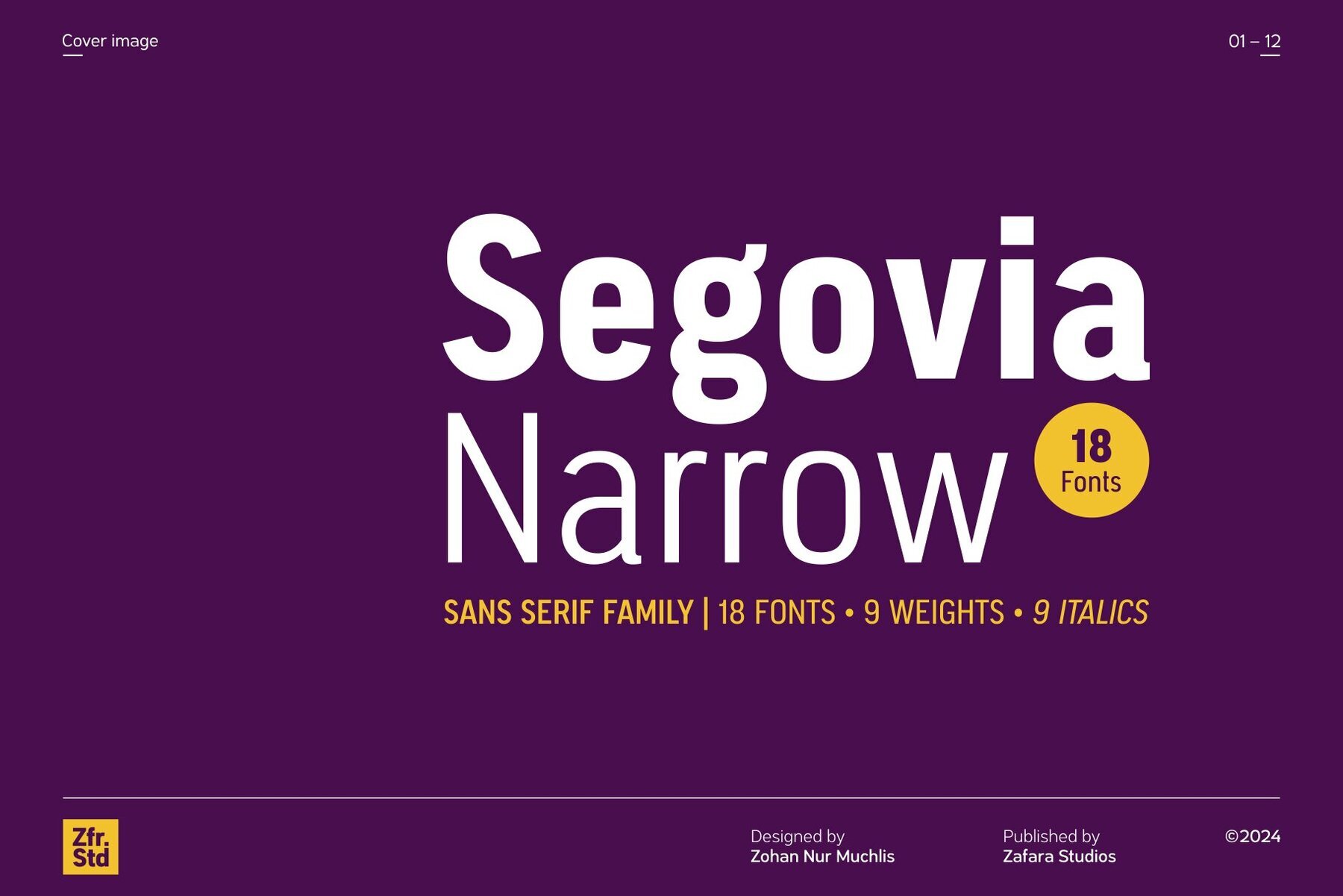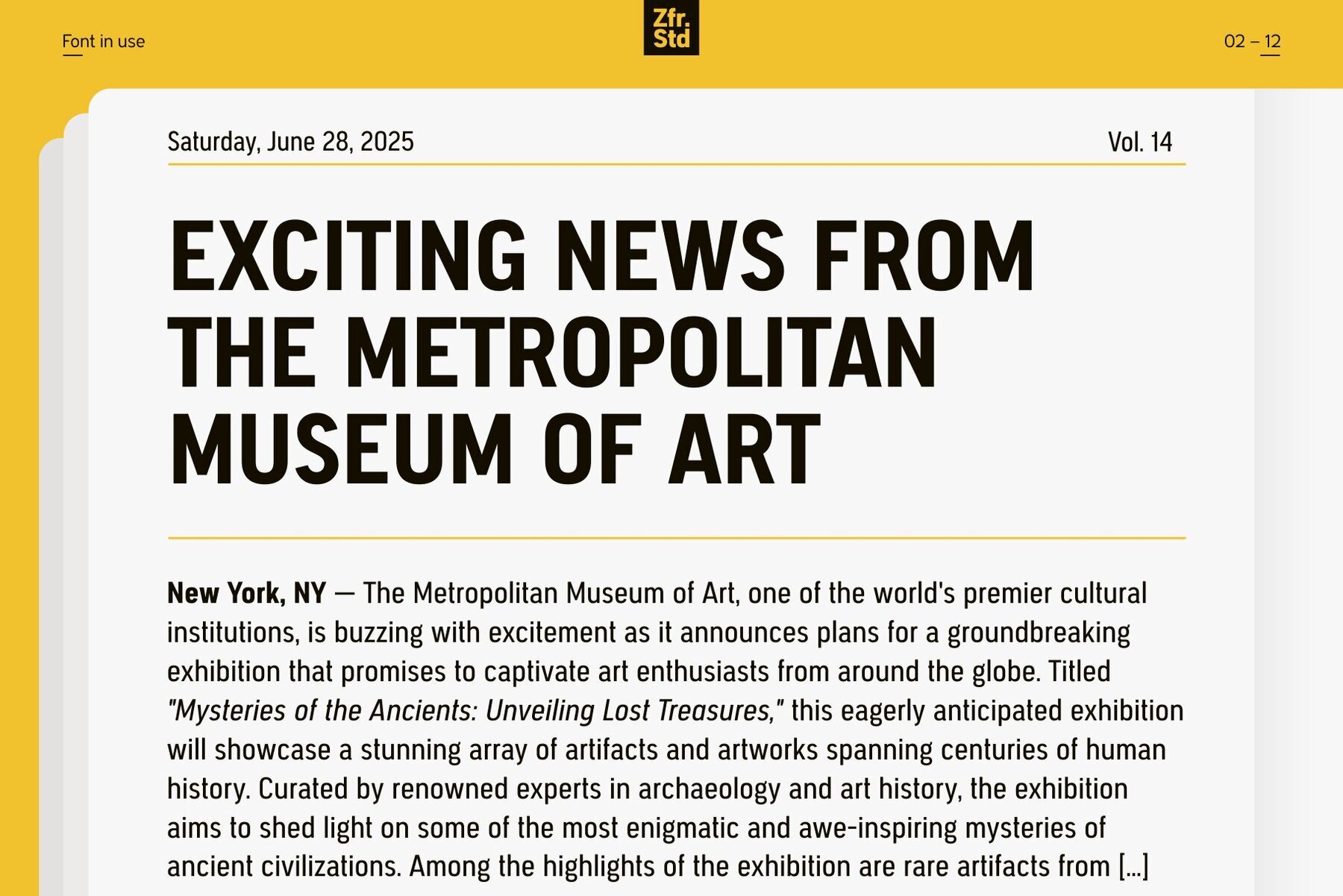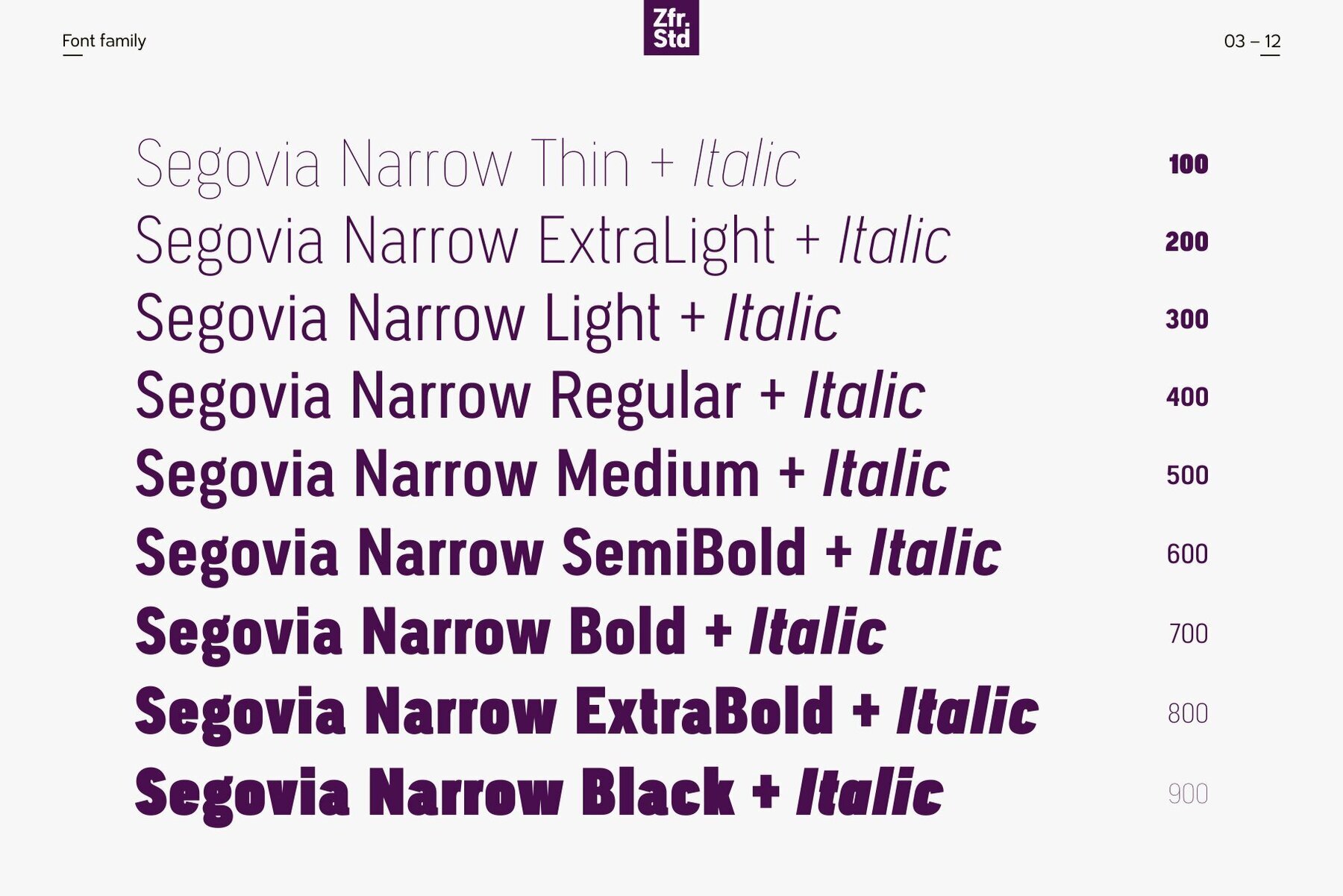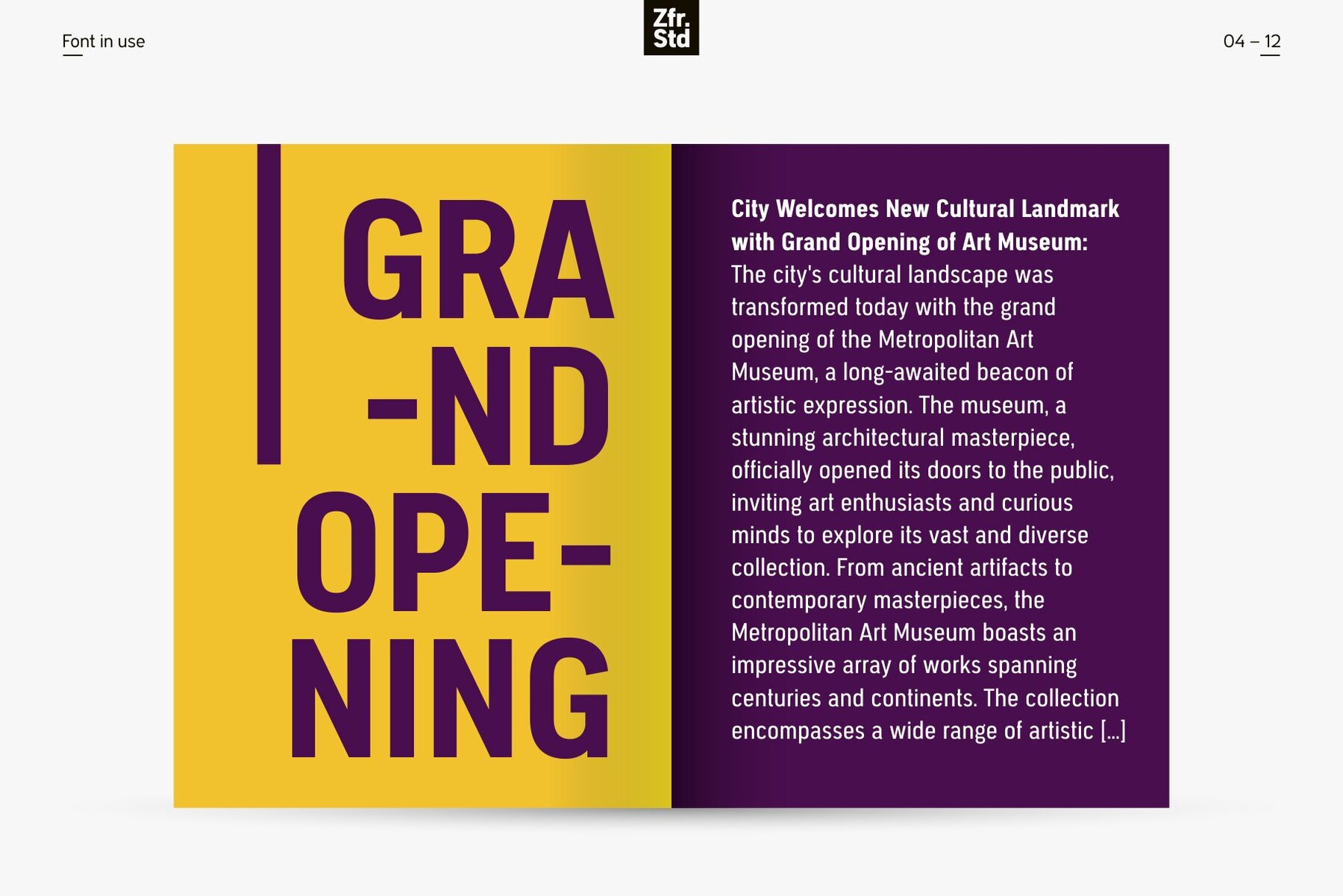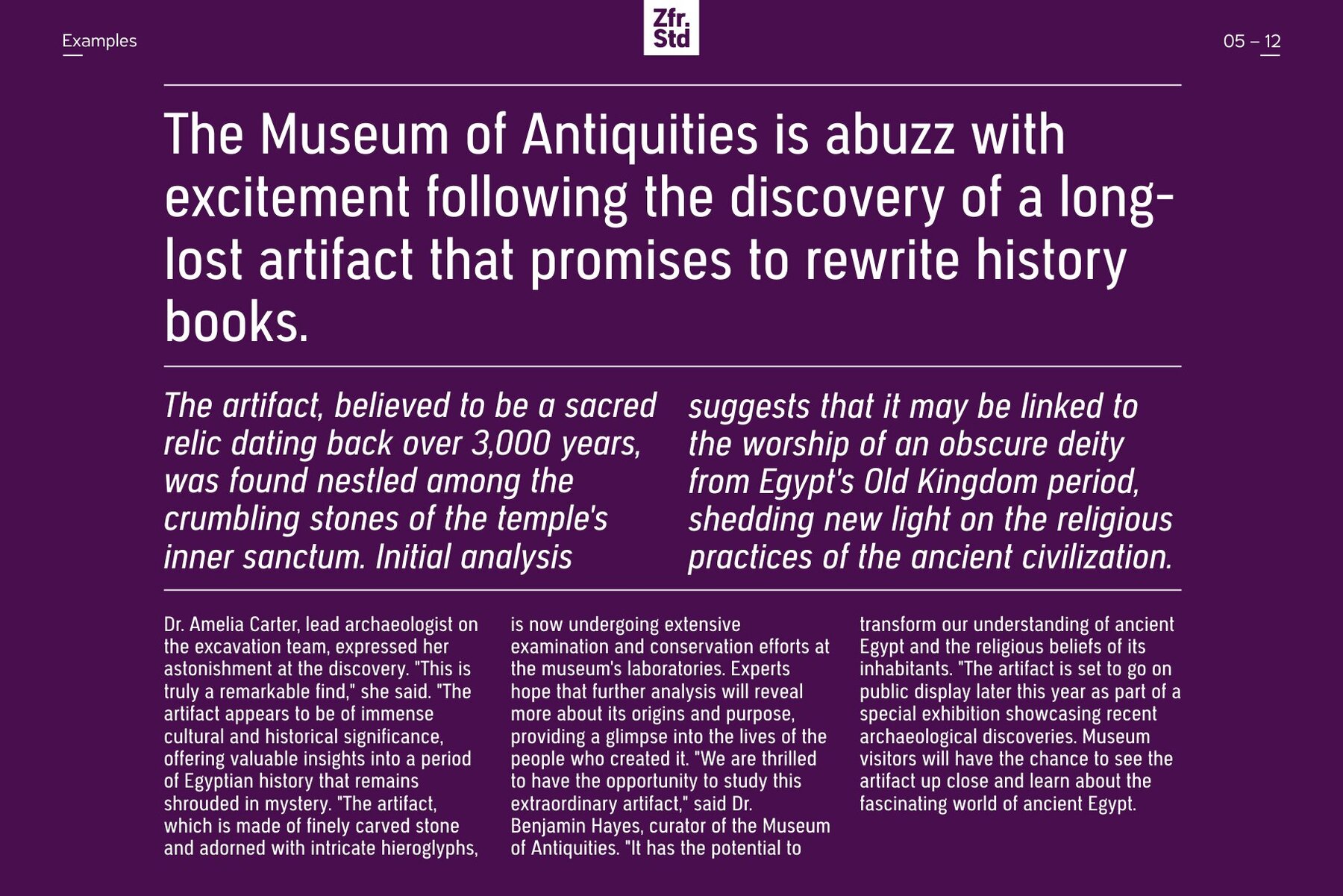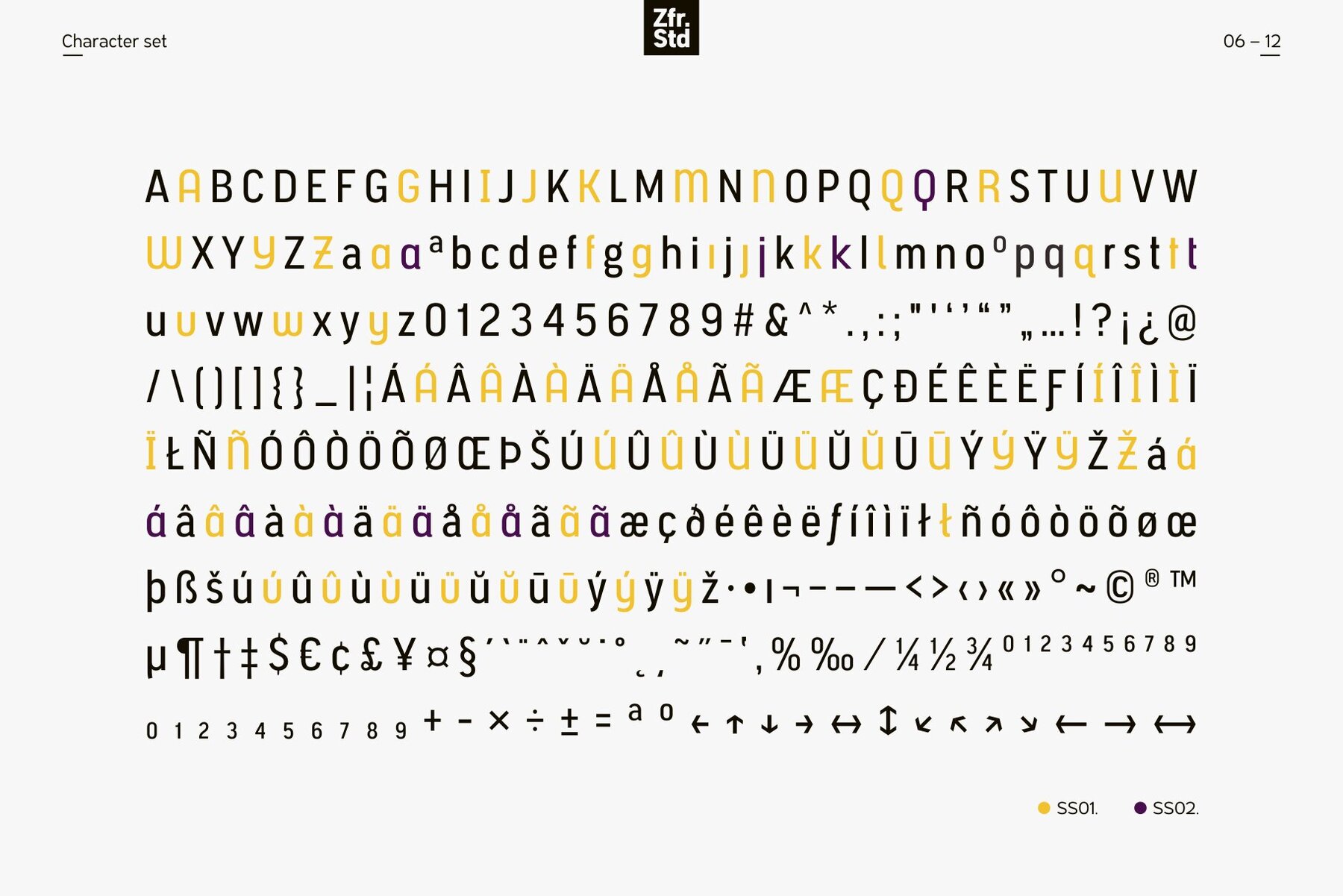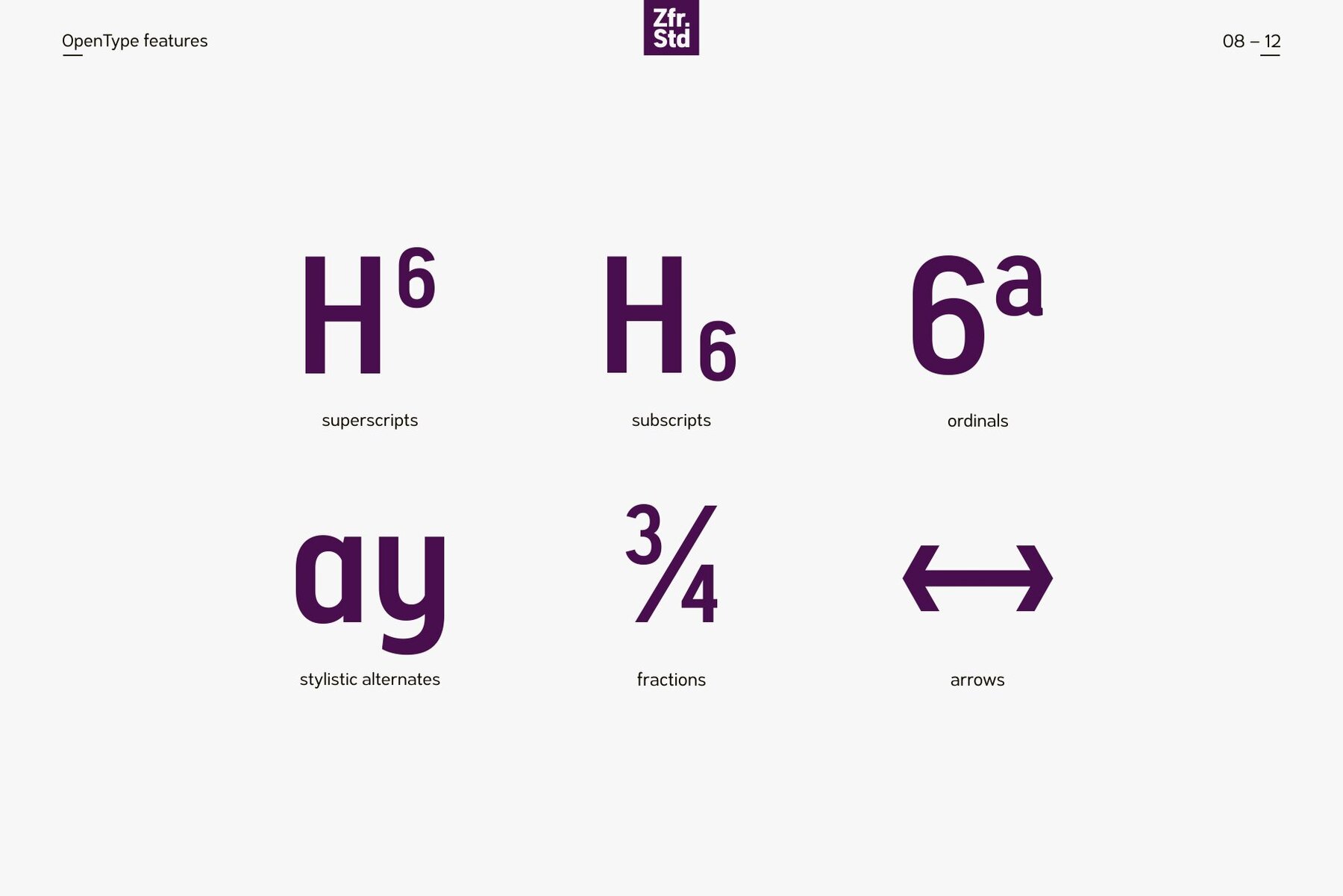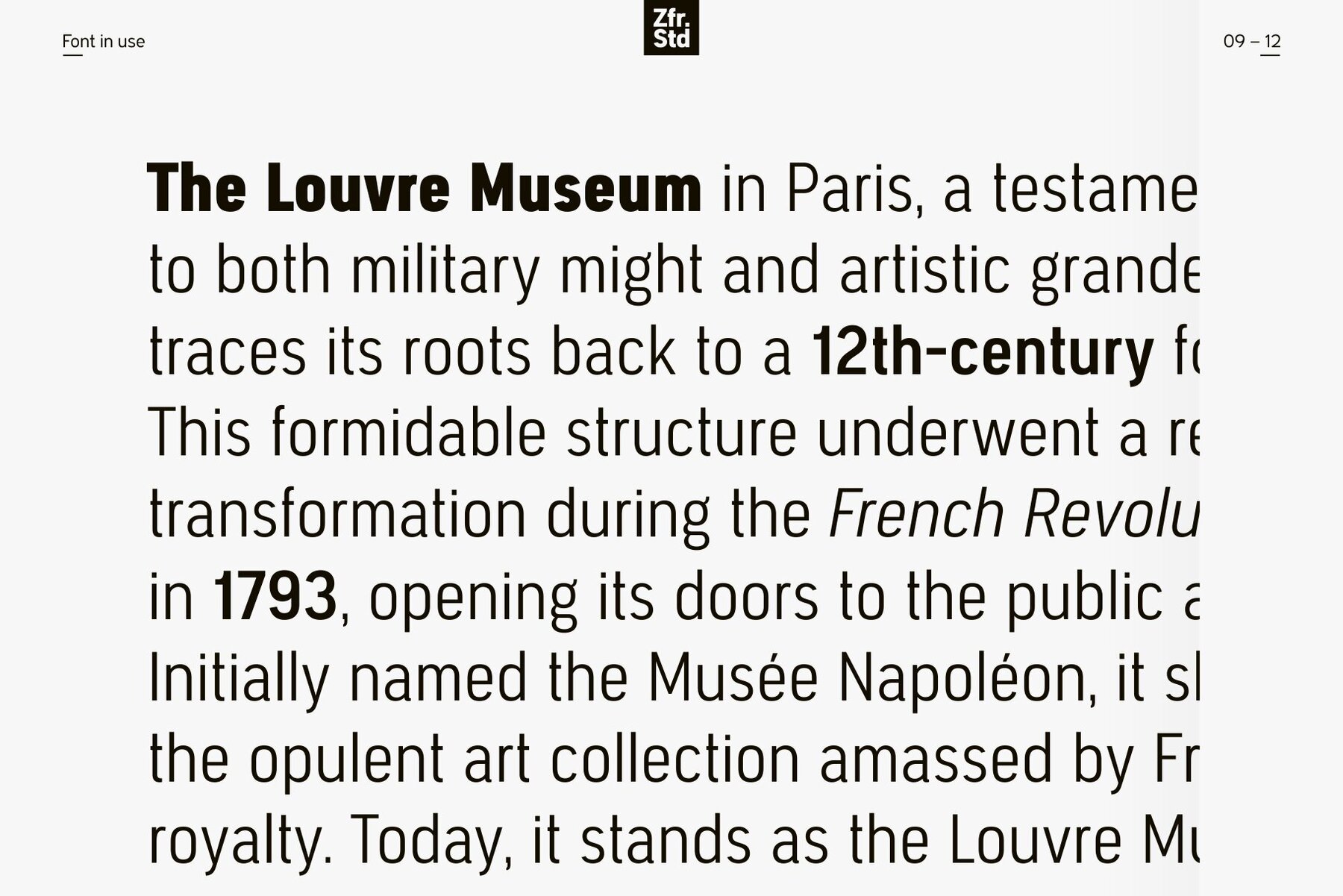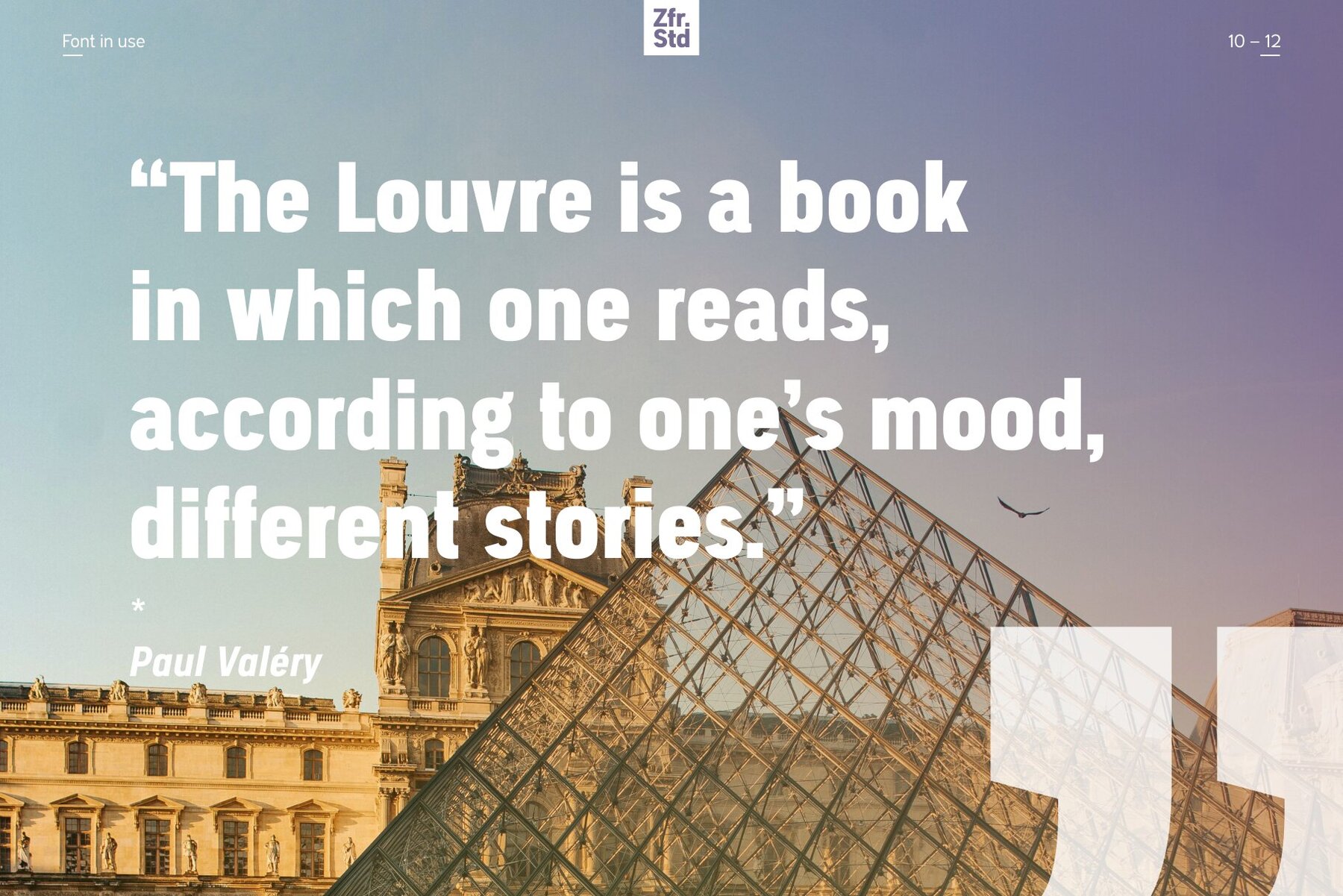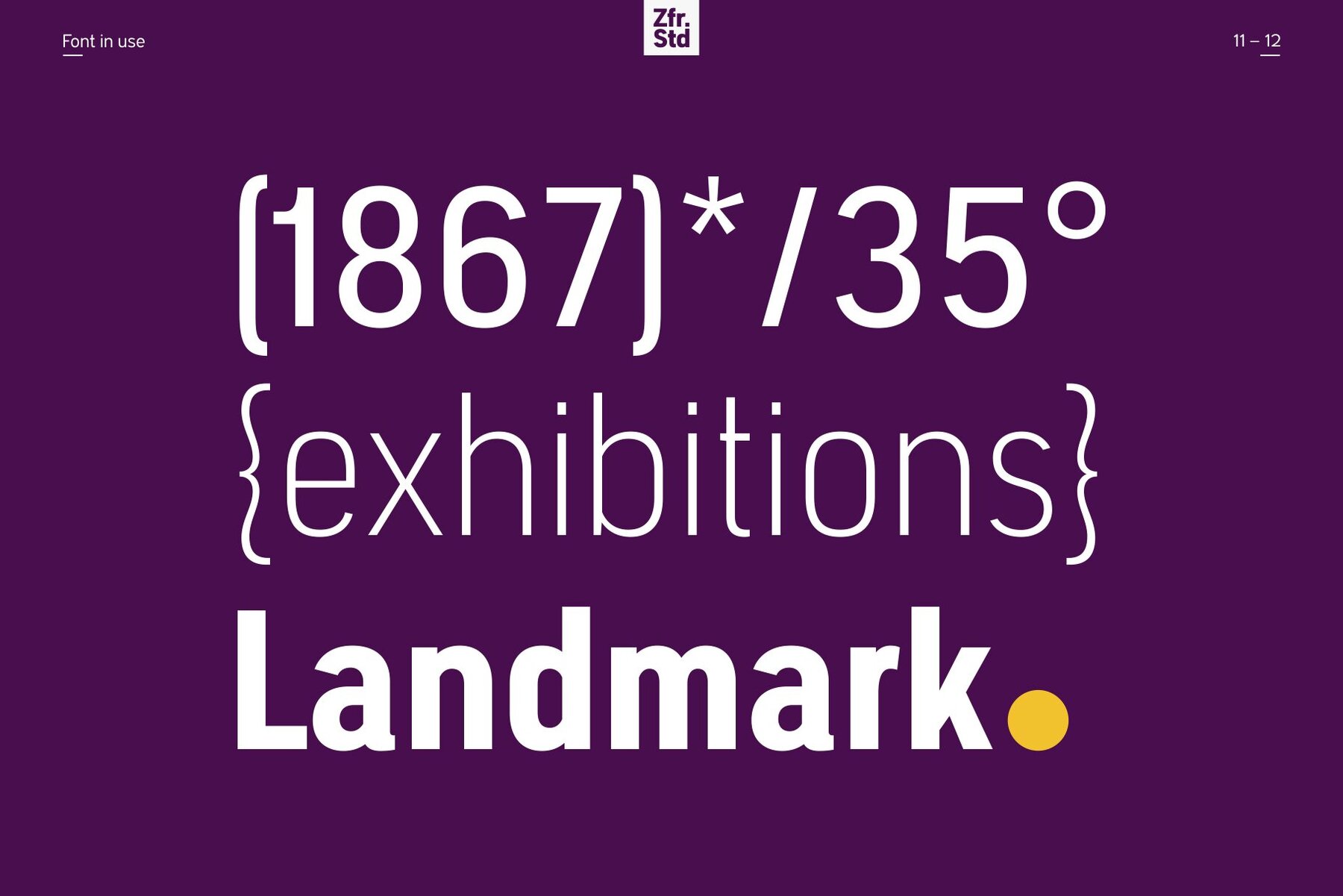
Segovia Narrow Font
Segovia Narrow is a sans-serif font designed specifically for headlines and titles. Comes with 9 weights and matching italics, making it 18 styles. It makes perfect for all creative projects. Also, some alternative glyphs will be an attractive choice. Segovia is the perfect choice for logos, titles, headlines and short blocks of text. The details: